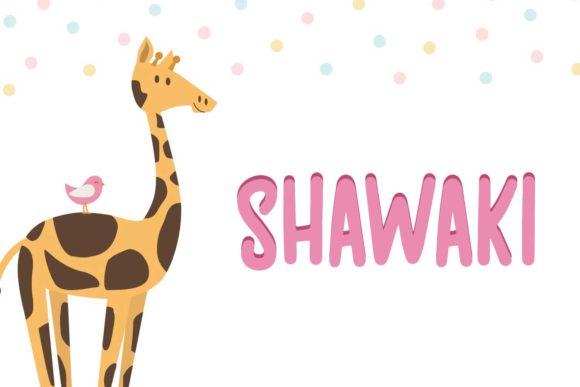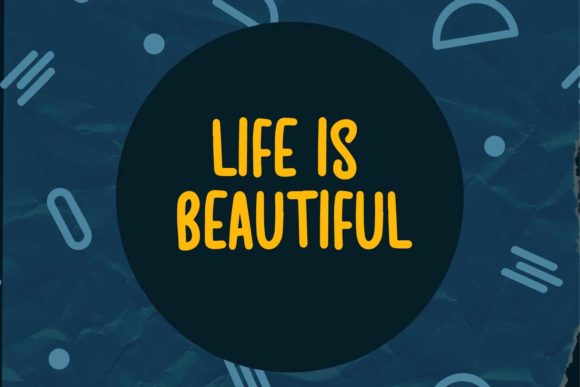
Shawaki
About Shawaki Font
Shawaki is a playful and modern sans serif font. It can easily be matched to an incredibly large set of projects, so add it to your creative ideas and notice how it makes them stand out!